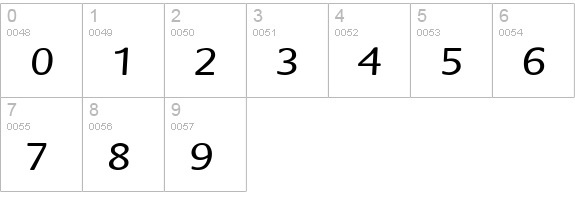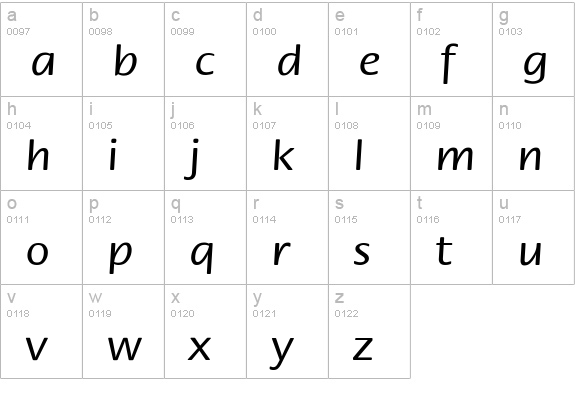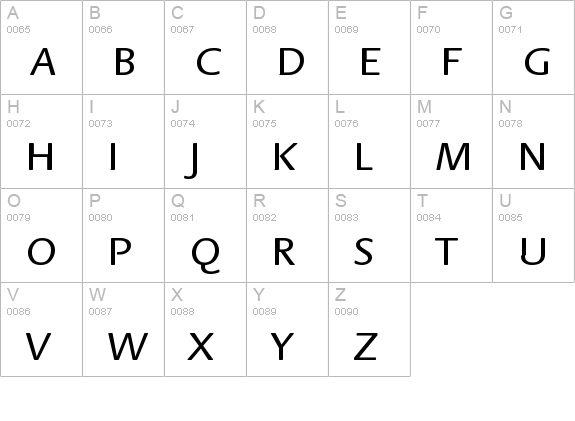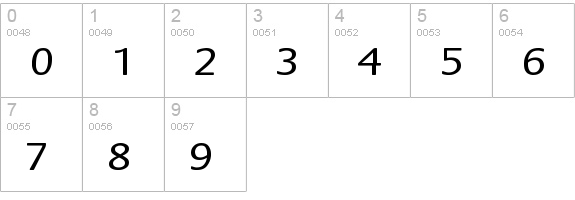
StackExt-Normal Font Details
StackExt-Normal is the standard, neutral variant in the StackExt typeface family \xE2\x80\x94 well suited to general body text, paragraphs, and standard typographic work.
Introducing StackExt-Normal font, a versatile and modern typeface that will add a touch of elegance to your designs. With its clean lines and balanced proportions, this font is perfect for a wide range of projects, from branding and advertising to graphic design and web development. StackExt-Normal font is meticulously crafted to ensure readability and legibility, making it ideal for both print and digital applications. Its timeless aesthetic and subtle yet distinct personality will captivate your audience and elevate your creative endeavors. One of the best features of StackExt-Normal font is that it is freely available to download at FontsMarket.com. This means that you can enjoy the benefits of this exceptional font without any cost. Whether you are a professional designer or a hobbyist, this font provides a high-quality solution that will enhance your work without breaking the bank. With its extensive character set and wide range of weights, StackExt-Normal font offers endless possibilities for customization and creative expression. Whether you need a bold headline or a delicate script, this font has you covered. Its versatility allows it to seamlessly adapt to any design style or project requirement. So why wait? Download StackExt-Normal font for free at FontsMarket.com and unlock the potential of this exceptional typeface. Transform your designs with its timeless elegance and make a lasting impression on your audience. Whether you're working on a logo, a website, or a printed piece, StackExt-Normal font will elevate your work to new heights.